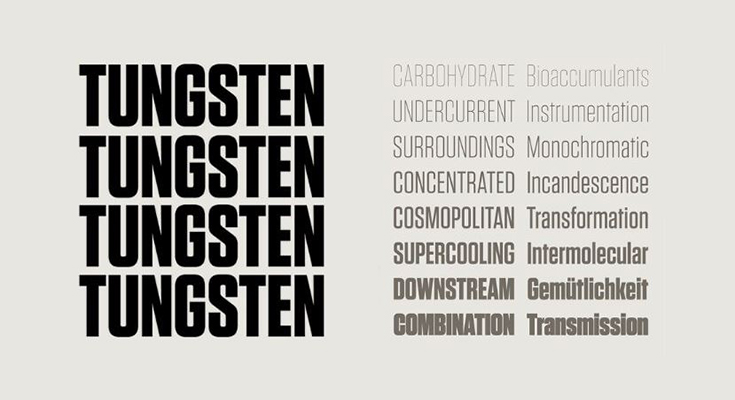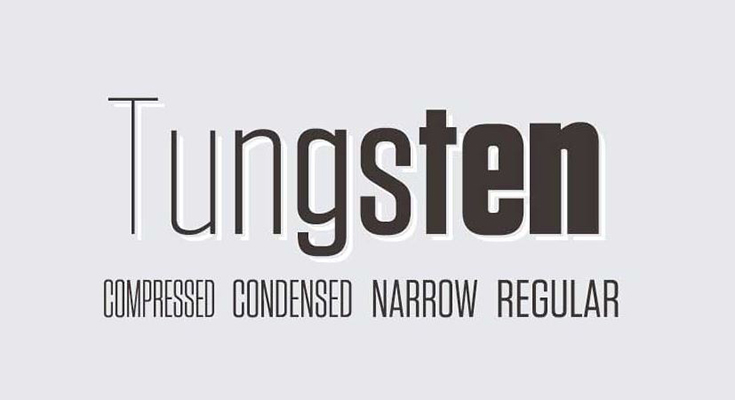
Today we are going to introduce a new sans-serif typeface family called Tungsten Font, It’s a bold and modern sans-serif typeface that is known for its clean lines and industrial look.
This unique display sans-serif family was developed and shared in 2009 by the two legends Hoefler and Frere-Jones.
The flat-sided typeface style is famous for Haspipe and was extremely popular for poster design in the 20th century. Its flat sides were perfect for space letters in poster design.
Tungsten Font comprises 32 different styles including Bold, etc. That possesses the Opentype and Truetype formats and also be known for colossal language support. And this font also contains 415 glyphs.
It was designed for use in editorial and advertising contexts, where its powerful and impactful design can help to draw attention and create a sense of authority.
The font has become popular among designers and advertisers alike and is often used in a variety of contexts, such as logos, headlines, titles, headers, and branding materials.